Ever feel like modern design is a little too… clean? Sometimes you need a hit of personality, a dose of nostalgia that stops the scroll and makes people feel something. That’s where the power of retro typography comes in. But finding the right vibe without breaking the bank can be a challenge.
Our Curated List of Free Retro Google Fonts
Retro & Vintage Script Fonts
Script fonts are the quickest way to add a human, handcrafted feel. They range from elegant and flowing to bold and energetic, perfect for logos, headlines, and invitations.
Lobster
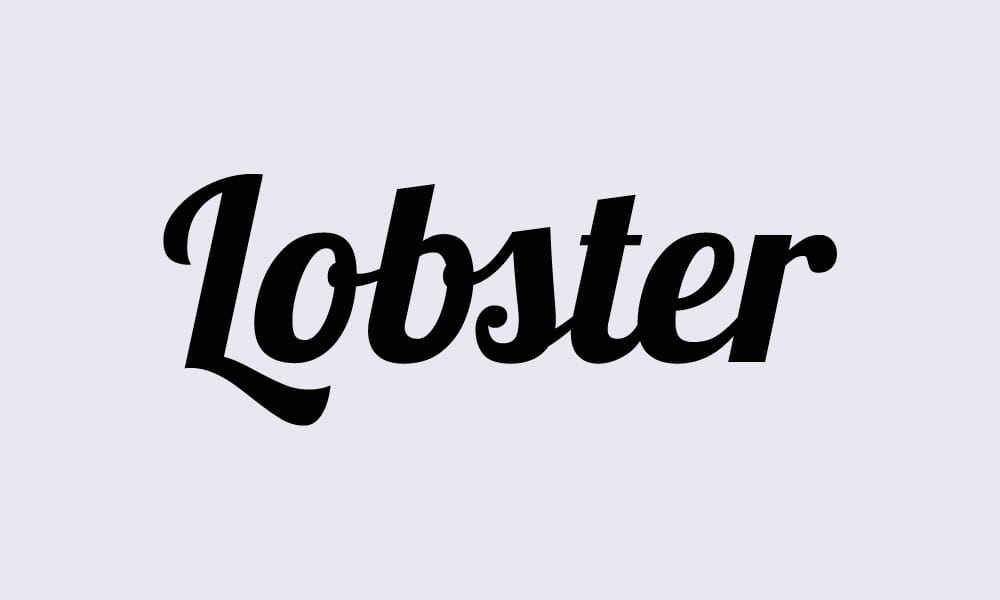
Lobster is an absolute icon in the world of free fonts. It’s a bold, condensed script that packs a punch. While it was so popular it became a bit overused a few years back, it’s now a certified classic.
- Designer’s Tip : Perfect for food branding, social media graphics, or any headline that needs to feel friendly and impactful.
Pacifico – Free Brush Script Font
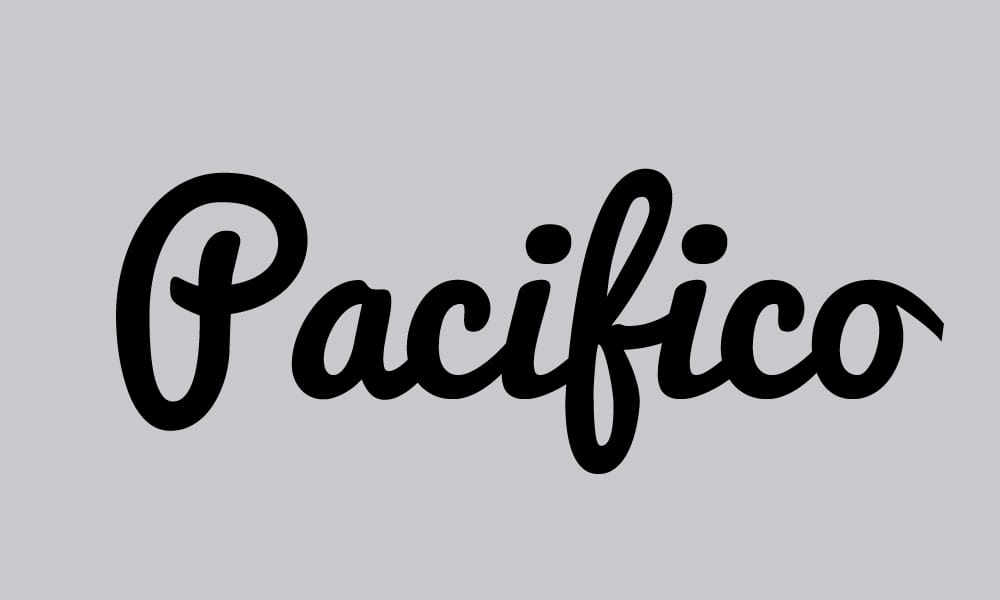
Pacifico is the smooth, rounded brush script you’ve seen on everything from beachside cafe menus to inspirational quotes. It’s effortlessly cool and laid-back, capturing a perfect 1950s surf culture vibe.
- Designer’s Tip: Use this for a project that needs to feel warm, approachable, and a little bit fun. It’s one of the best free vintage script fonts out there.
Sacramento Font
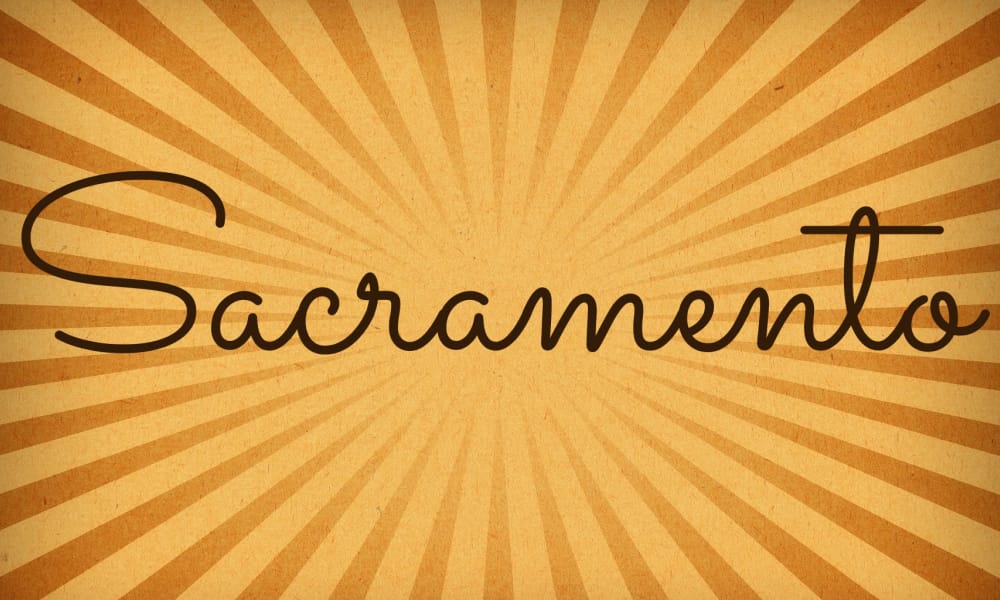
Delicate and personal, Sacramento is a monoline script that feels like it was written by hand. It’s semi-connected, giving it a natural, effortless flow that’s perfect for adding a touch of elegance.
- Designer’s Tip : I love using this for signatures, elegant logos, or subheadings that need a personal touch without being overpowering.
Yellowtail Brush Script
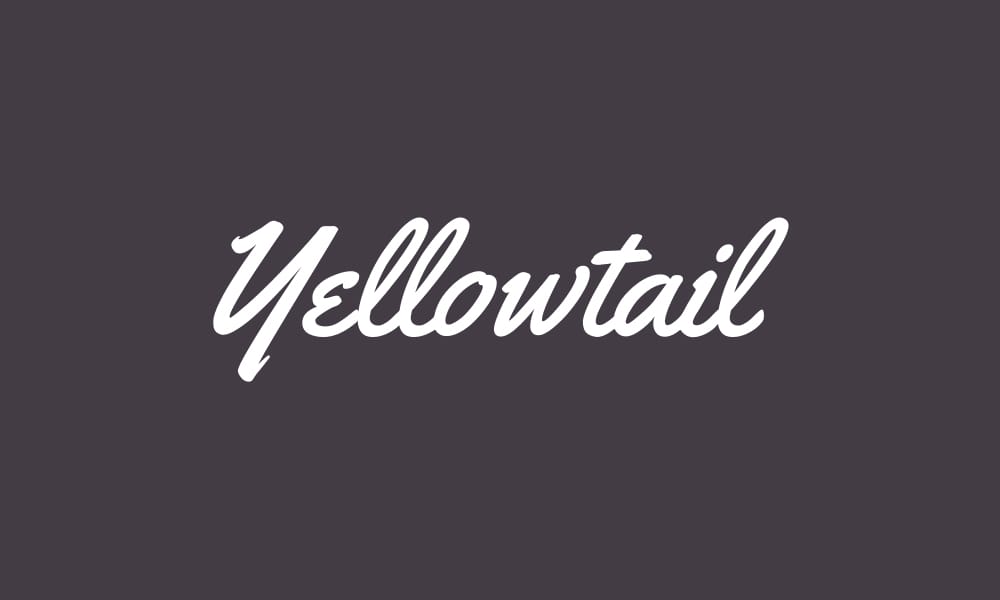
Yellowtail is a fantastic mix of connecting and non-connecting letters, giving it a unique, quirky personality. It’s a flat-brush script that feels both old-school and energetic.
- Designer’s Tip: Great for projects that need a vintage look that’s not too stuffy. Think craft beer labels or trendy cafe branding.
Great Vibes Script Font
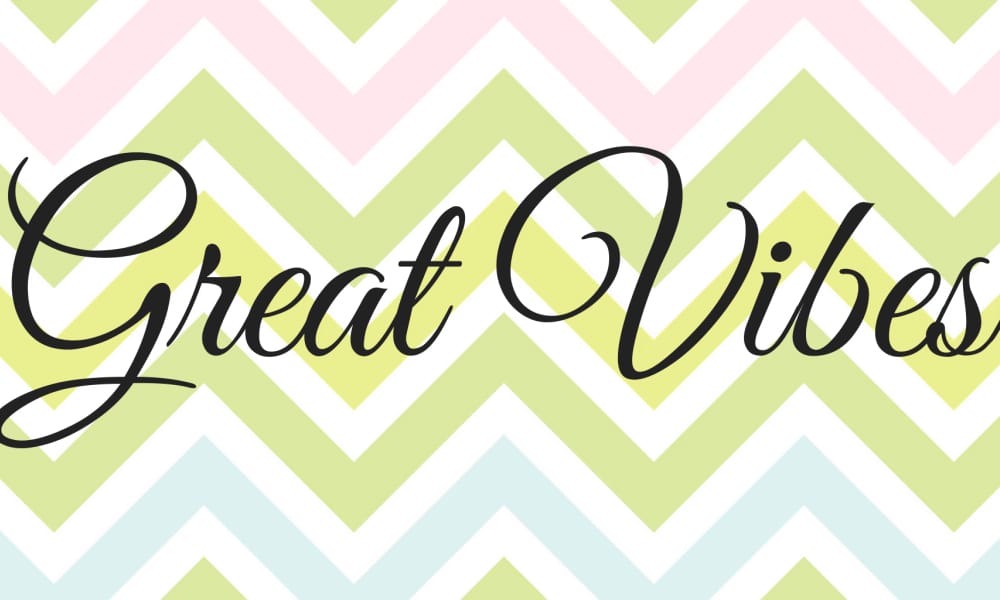
When you need formal elegance, Great Vibes is your answer. Its beautifully flowing uppercase letters and clean, legible lowercase make it a go-to for wedding invitations, certificates, and high-end branding.
- Designer’s Tip : While it looks delicate, it’s surprisingly readable. A fantastic choice when you need a script that feels both fancy and functional.
Playball Font
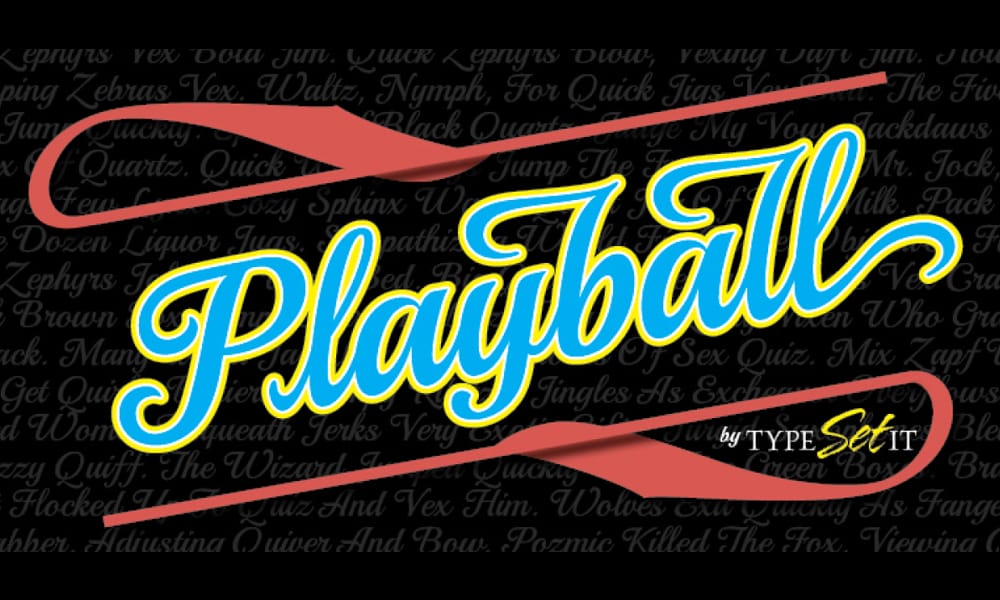
As the name suggests, Playball has a classic, sporty feel, reminiscent of baseball jerseys and retro Americana. It’s a connecting script that’s full of energy and movement.
- Designer’s Tip: This is one of the top retro fonts for logos on Google Fonts, especially for sports teams, burger joints, or any brand with an energetic, all-American vibe.
Grand Hotel
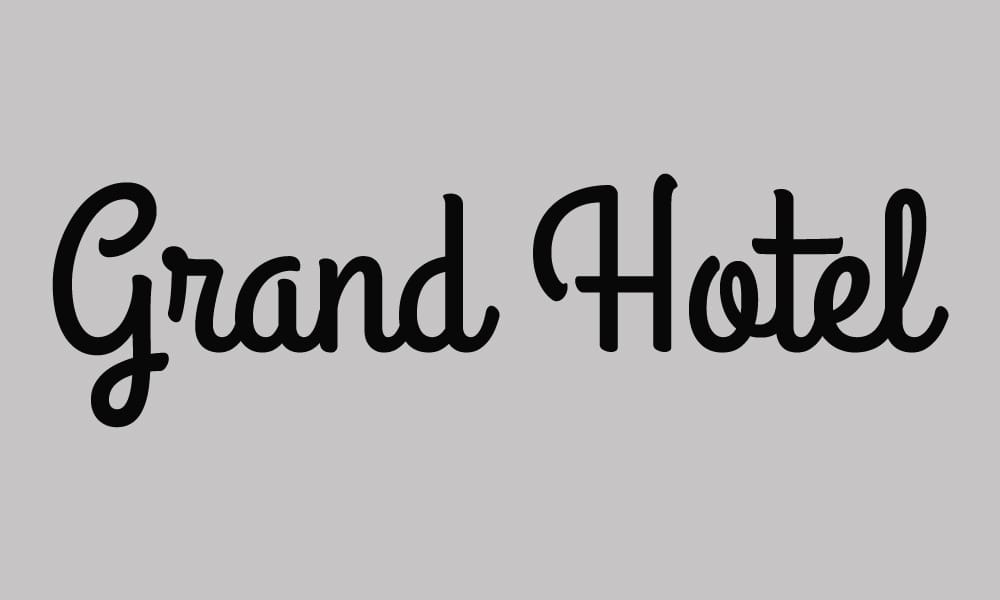
Grand Hotel has a wonderful, upright style that makes you think of classic movie titles and vintage hotel signs. It’s surprisingly compact and works well in tight spaces.
- Designer’s Tip: Perfect for when you need a touch of class and nostalgia without taking up too much horizontal space.
Yesteryear Script
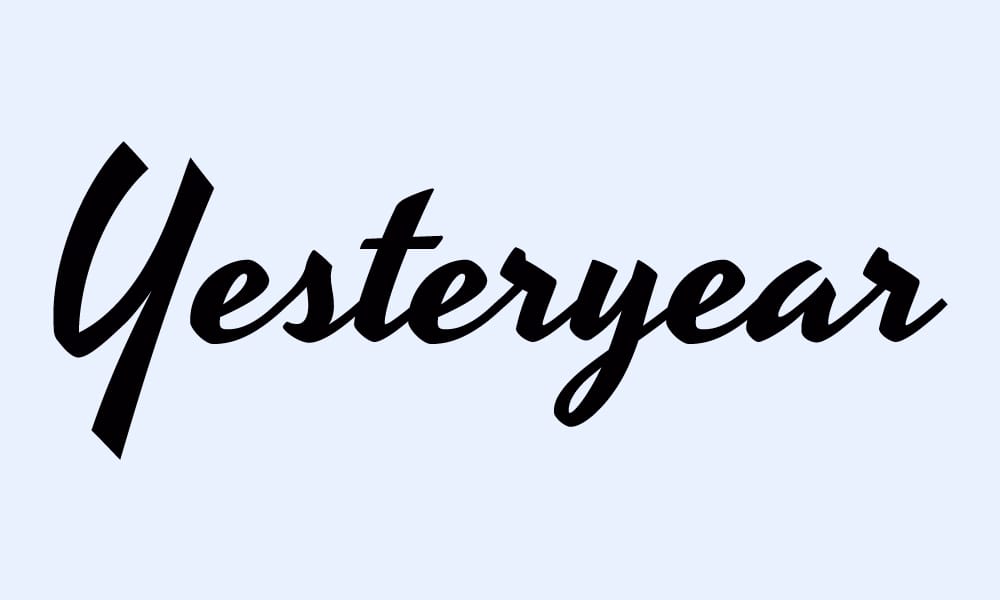
Yesteryear is a “sharp yet friendly” script, as its designer describes it. It has a clean, almost chrome-like feel, making it perfect for automotive logos or any design that needs a polished, retro look.
- Designer’s Tip : It has a fantastic, classic “S” that really sells the vintage effect.
Mrs Sheppards
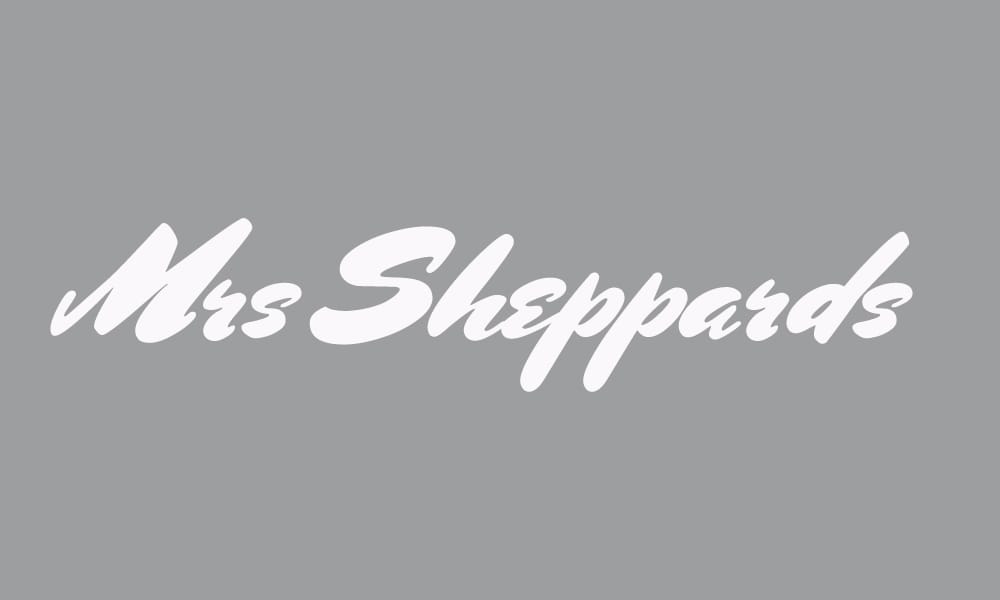
Based on the handwriting of a real person, Mrs Sheppards is full of personality and charm. It feels authentic and warm, like a note from a friend.
- Designer’s Tip: Use this when you want a design to feel deeply personal and handmade. It’s a great font for a small business or personal brand.
Groovy & Funky Display Fonts